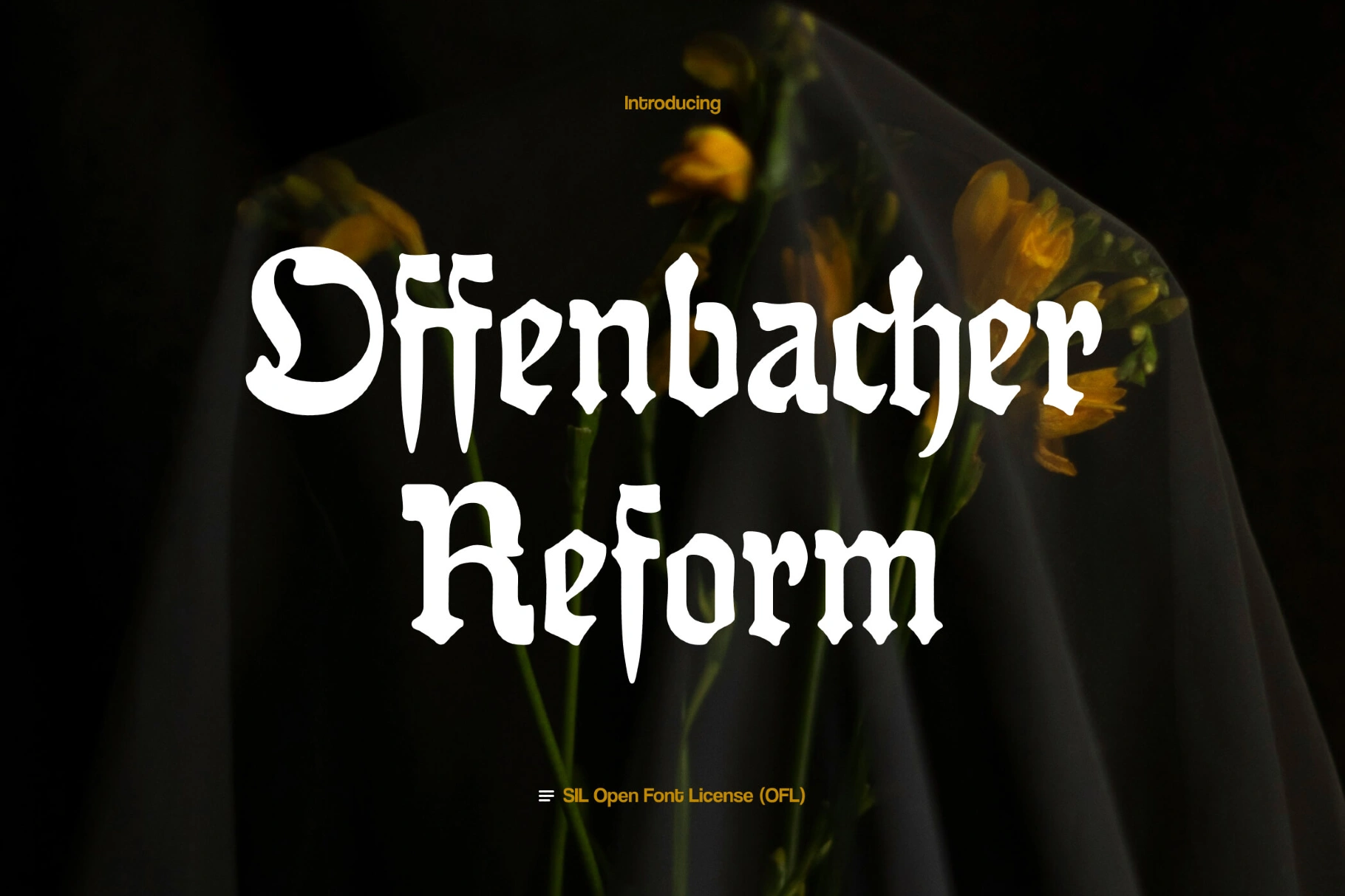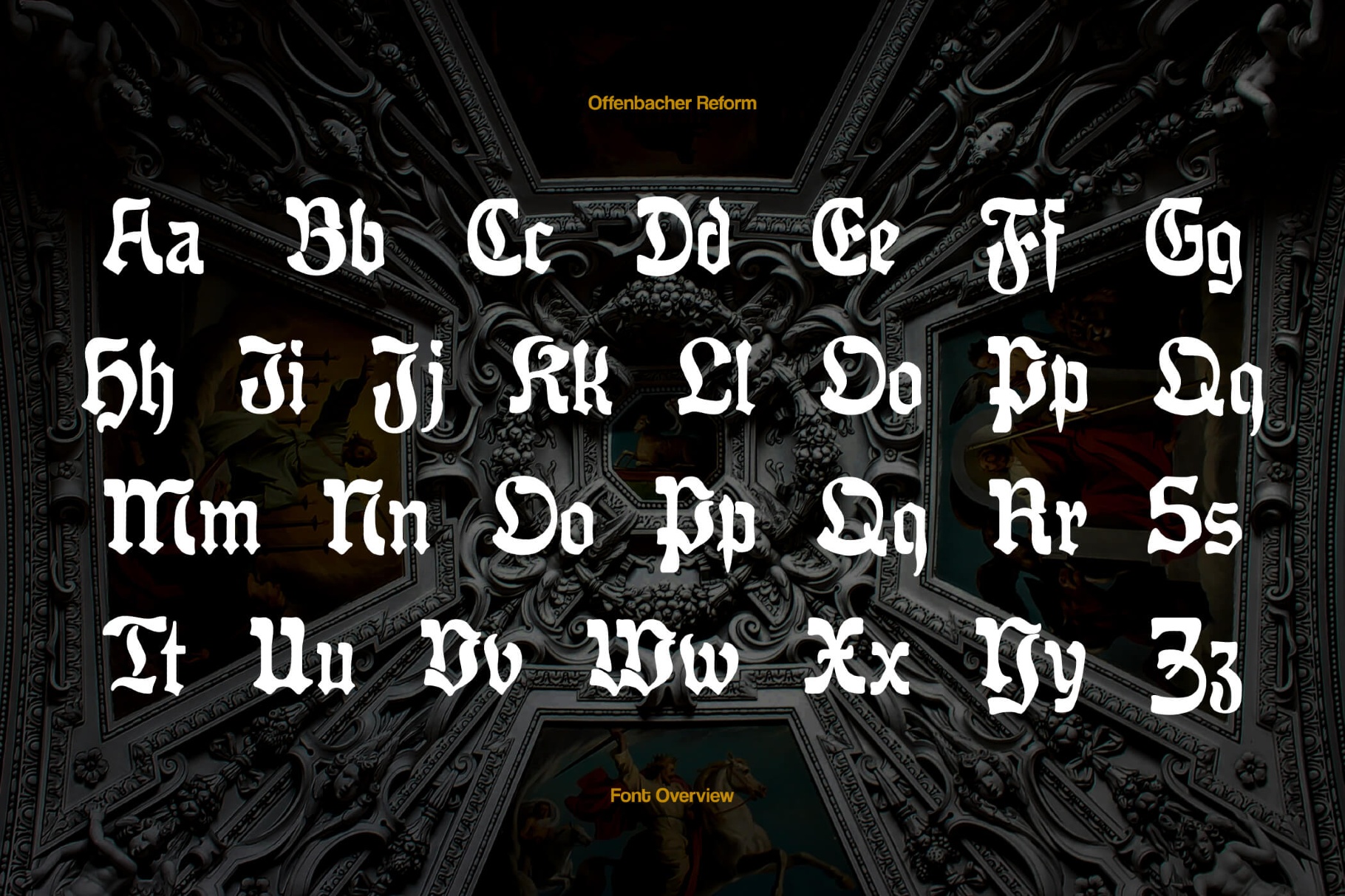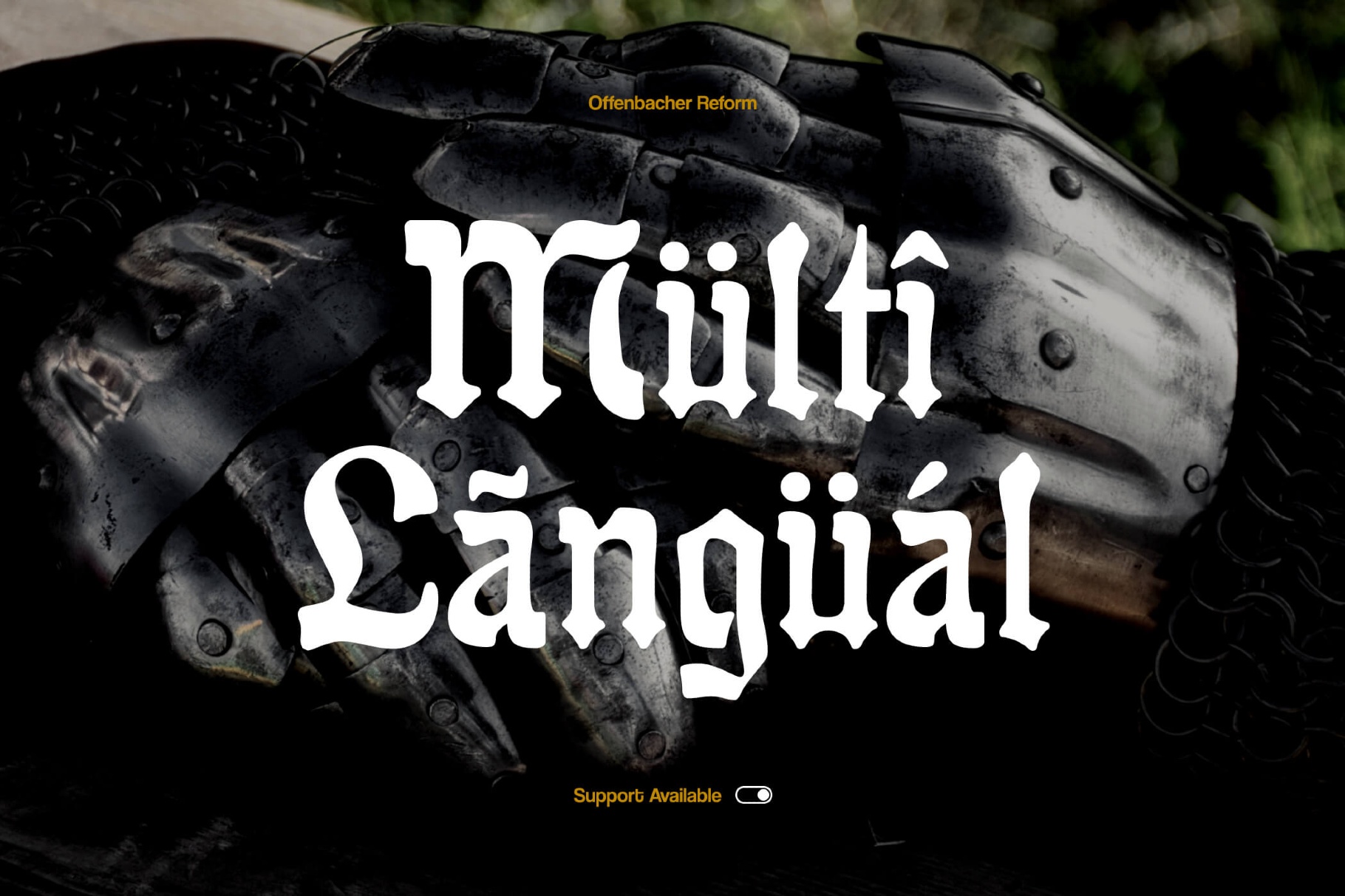
Offenbacher Reform Gothic Font
Offenbacher features tall vertical strokes and pointed terminals with a sharp, ceremonial profile. Compact spacing and narrow proportions create a tight, textured line, while gentle curves in the arches ensure the letterforms remain readable in short paragraphs and headlines. Ligature details echo traditional typesetting.
Uses:
• Book covers and title pages for historical, theological, or political publications.
• Posters and flyers for lectures, cultural festivals, or commemorative events.
• Album artwork, logos, and track titles for metal, folk, industrial, or neoclassical music.
• Branding, signage, and menus for breweries, tattoo studios, or barbershops.
• Labels and packaging for specialty foods, beer, wine, spirits, or artisan goods
• Apparel graphics, patches, and merch.